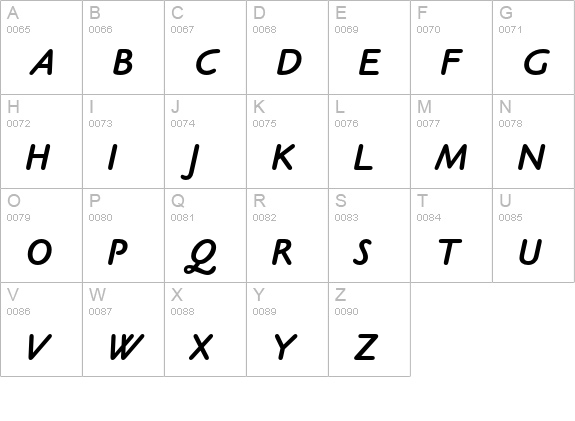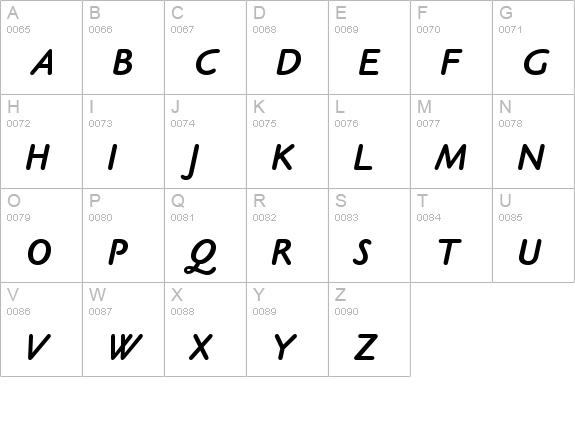
OPTICookeSans-BoldItalic is a visually striking font that exudes confidence and modernity. With its bold and italic design, this font commands attention and adds a touch of sophistication to any project. The sleek lines and stylish curves of OPTICookeSans-BoldItalic make it a versatile choice for a wide range of design applications. The best part? OPTICookeSans-BoldItalic is available for free download at FontsMarket.com. Whether you're working on a professional project or a personal creative endeavor, this font is sure to make a bold statement. Don't miss out on the opportunity to enhance your designs with this eye-catching typeface that is both elegant and impactful. Download OPTICookeSans-BoldItalic today and elevate your typography game to the next level.